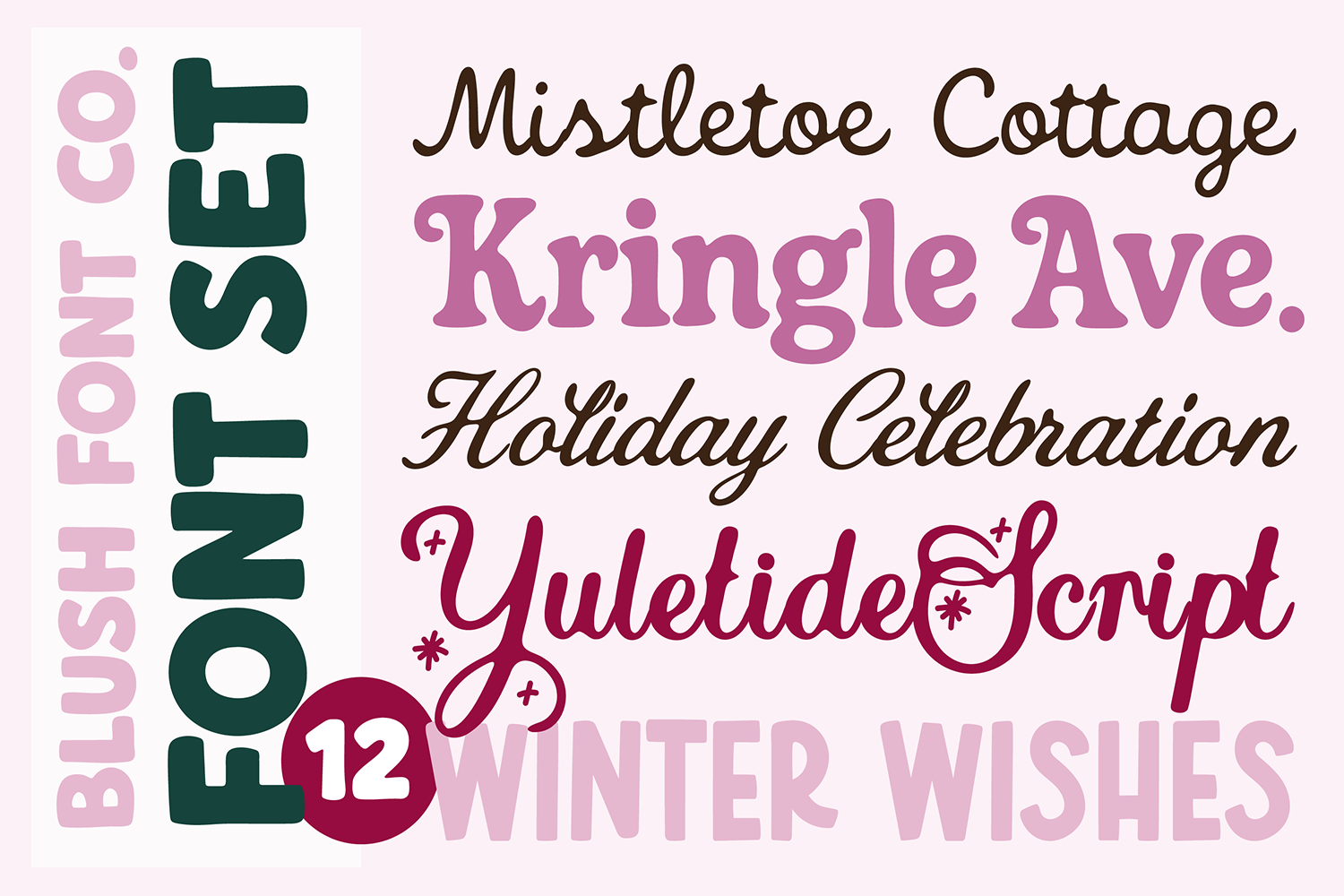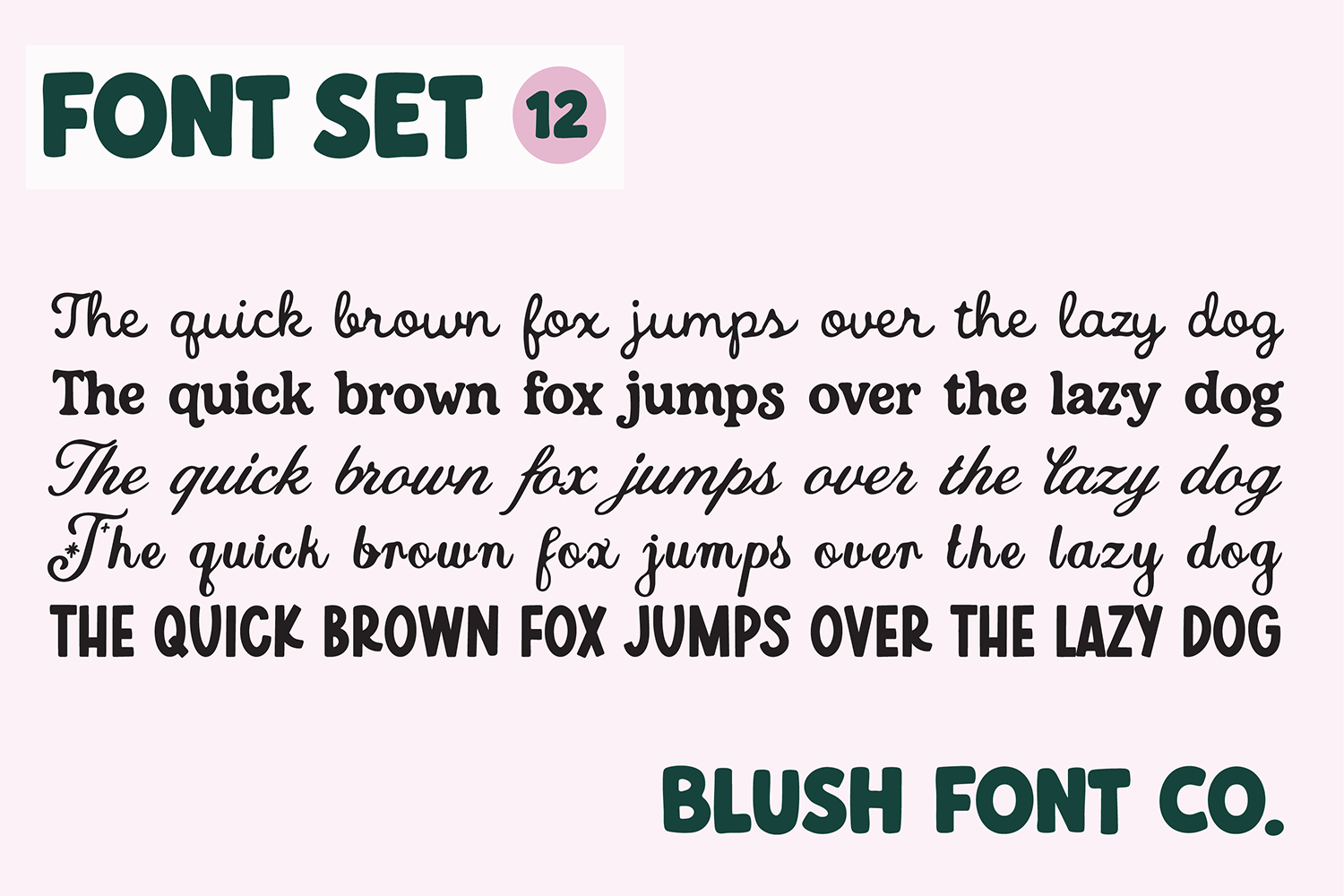
BFC FONT SET 12
Small bundle of my recent fonts! These are cute christmas script and sans fonts. These will work perfect for Cricut projects.
Mistletoe Cottage
Kringle Avenue
Holiday Celebration
Yuletide Script
Winter Wishes